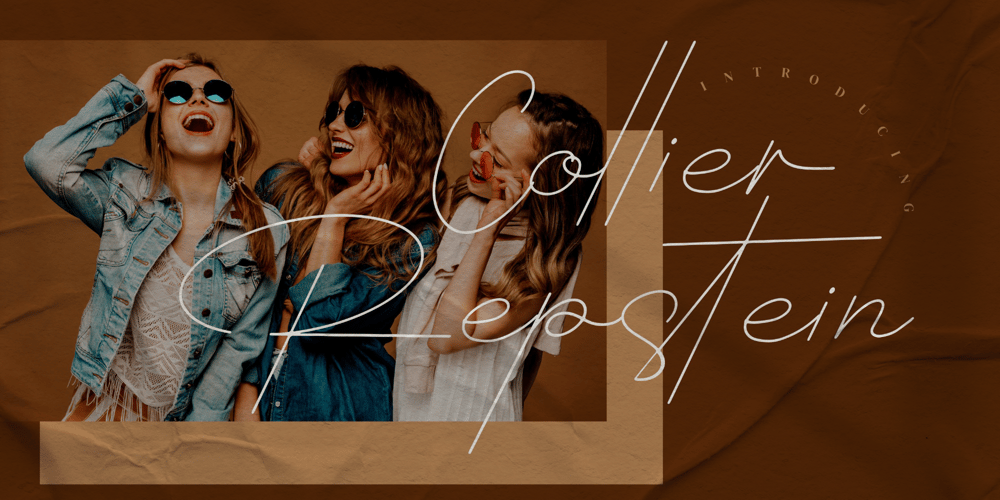
Collier Repstein Font Family was designed by Dimas Alif Maulana and published by Integritype. Collier Repstein contains 2 styles and family package options. Collier Repstein is a lovely and thin lettered script font. It will elevate a wide range of crafting ideas, from cards, to branding, labels and much more.